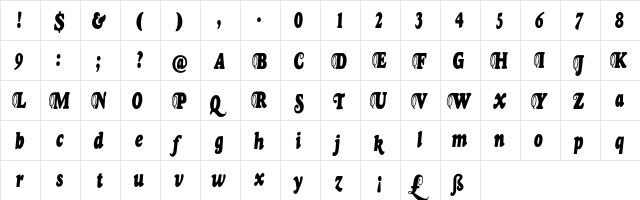
Goudy Fancy Condensed Heavy Italic
| Foundry | Josh Korwin |
| Designer | Frederic Goudy. Digitized with extended glyph set by Josh Korwin |
Design Context for Goudy Fancy Typeface
Goudy Fancy is a composed and adaptable typeface that performs quietly and consistently across a wide range of design contexts. The slanted form adds forward momentum and visual energy. Its narrow stance lets it pack a punch even in space-constrained designs.
Pro Tip: Use Goudy Fancy for emphasis, pull quotes, and subheadings where its slanted energy can add rhythm to the layout.